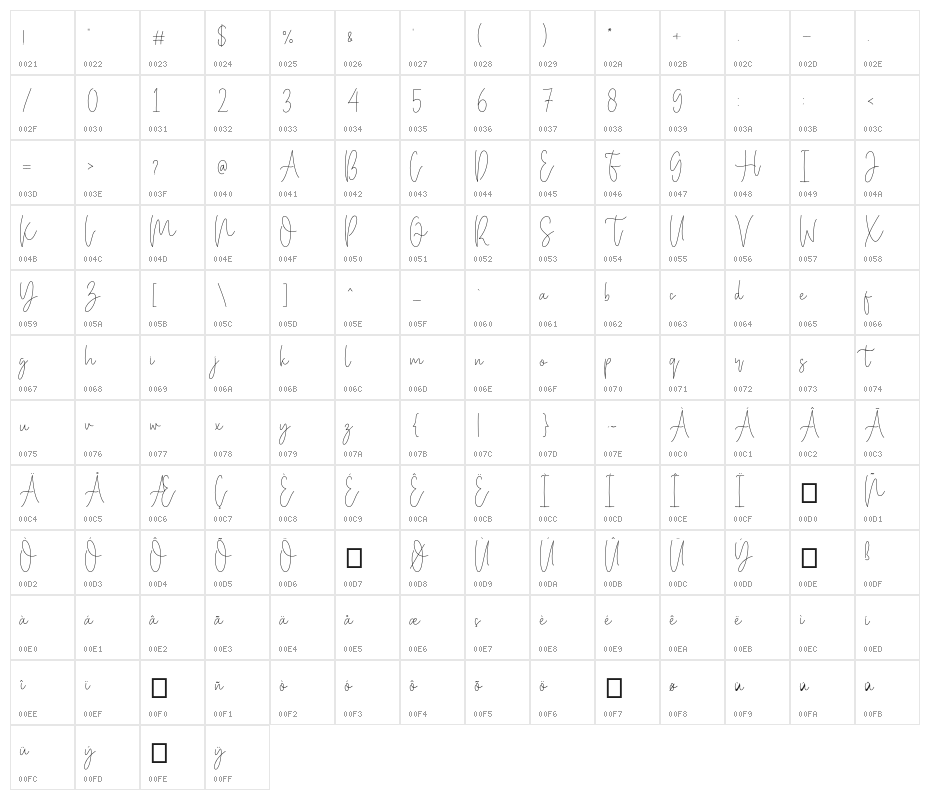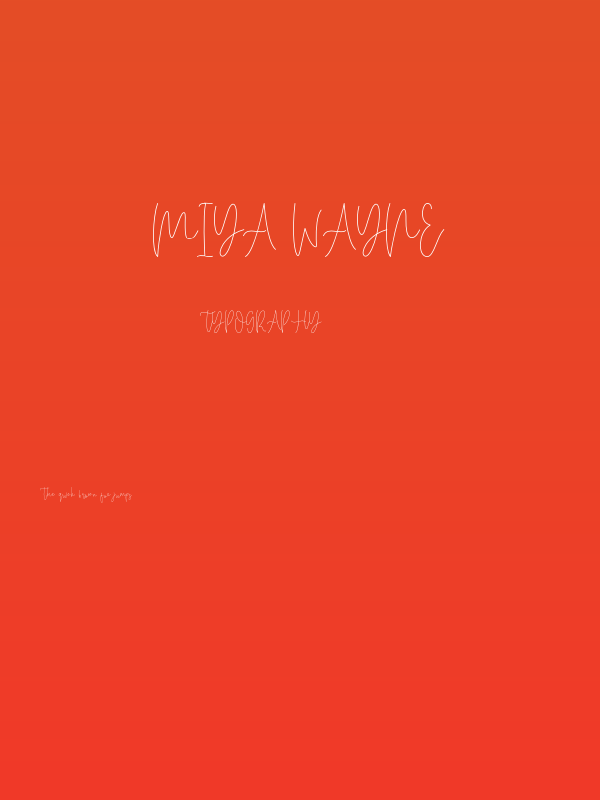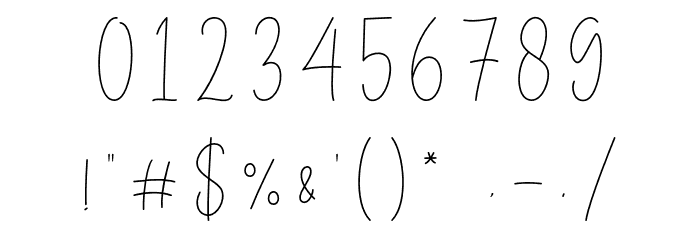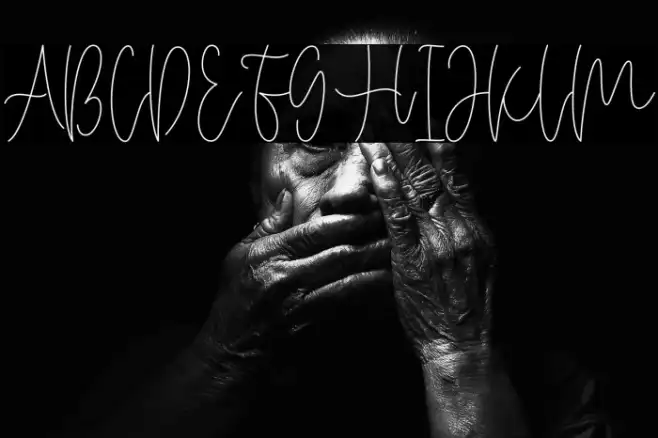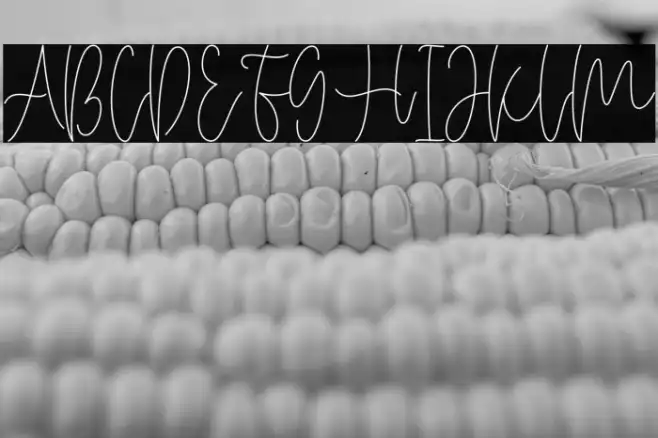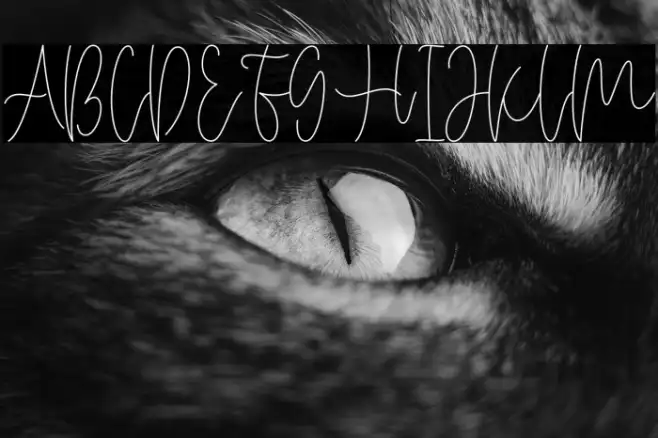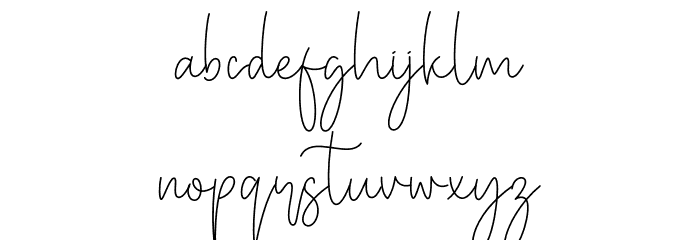
Miya Wayne Font
Miya Wayne Description
This font features a delicate and flowing handwritten style, characterized by its thin, elegant strokes and a slightly whimsical appearance. The uppercase letters are tall and slender, with a graceful, airy quality that gives them a sense of movement. The lowercase letters maintain the same fluidity, with some letters extending below the baseline, adding to the font's dynamic nature. Numbers and special characters are consistent with the overall style, maintaining the same light and airy feel. The font's design is both modern and artistic, making it suitable for creative projects that require a personal touch.
| Overall Style | Modern, Artistic |
| Proposed Projects | Ideal for wedding invitations, greeting cards, personal branding, and artistic projects. |